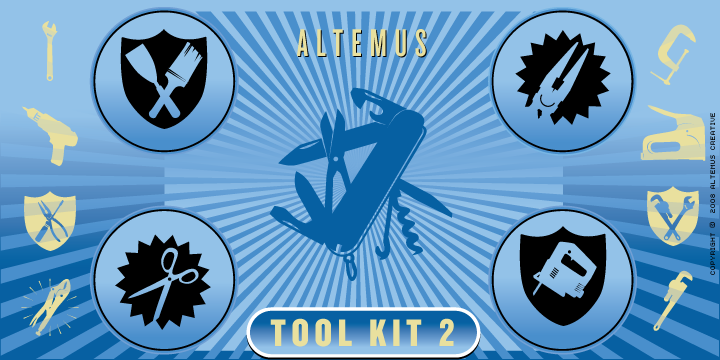
Altemus Tool Kit Two
Designed by: Robert Altemus
Altemus Tool Kit Two
A collection of 174 home improvement and construction equipment icons and designs.